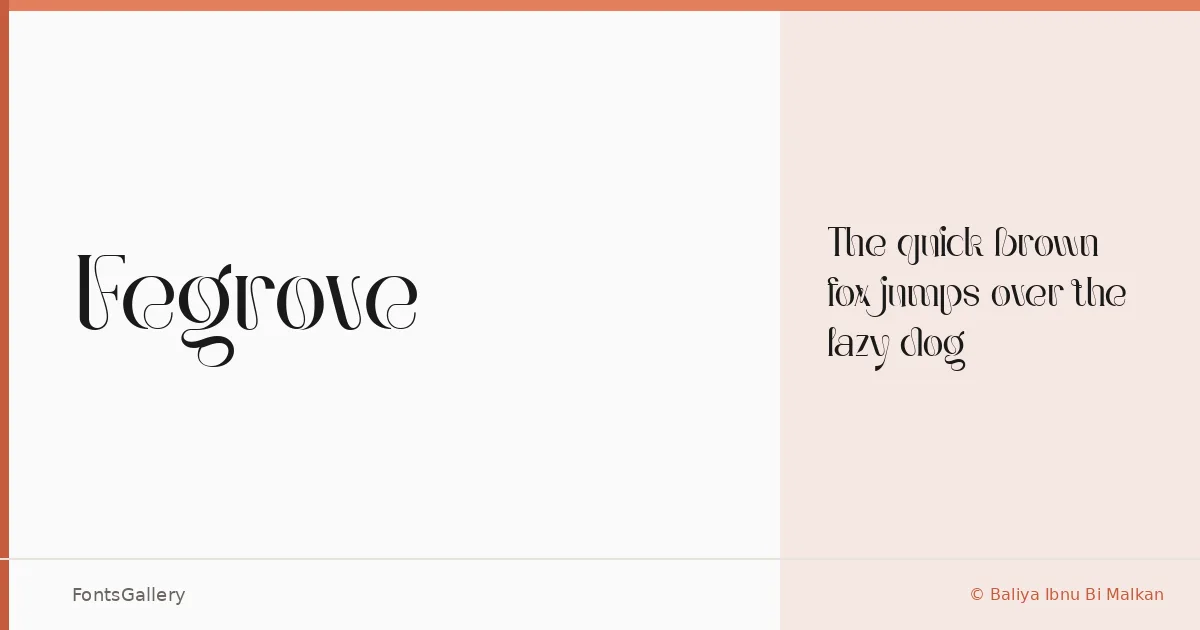
About Fegrove Font
There is a quiet confidence in the serifs here — the kind of restraint that reads as luxury rather than decoration. Designed by Baliya Ibnu Bi Malkan and released under the Elfira.Craft copyright, Fegrove arrives as a single Regular weight delivered in TTF format, which keeps the proposition clear and focused.
The family sits in classic serif territory, but the letterforms carry a modern edge that keeps them from feeling archaic. The mood is elegant and measured — the sort of face that holds its shape whether it is set large in a magazine spread or anchored as a logotype. With Latin coverage and a single clean cut, it rewards careful use more than it rewards quantity of styles.
Book covers, brand identities, logo treatments, magazine layouts, and website headers are all natural territory for these letterforms — anywhere that a composed, luxury tone needs to be established quickly. For contrast, it sits well alongside clean sans-serifs such as Helvetica, Josefin Sans, and Asap, while the more expressive scripts Armelie and Kactigona offer a warmer, more decorative counterpoint when the brief calls for it.